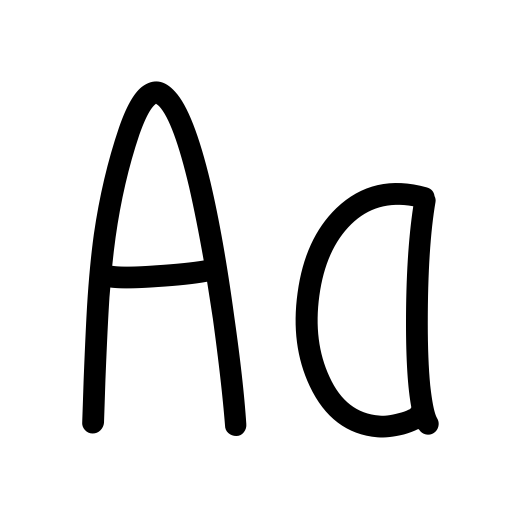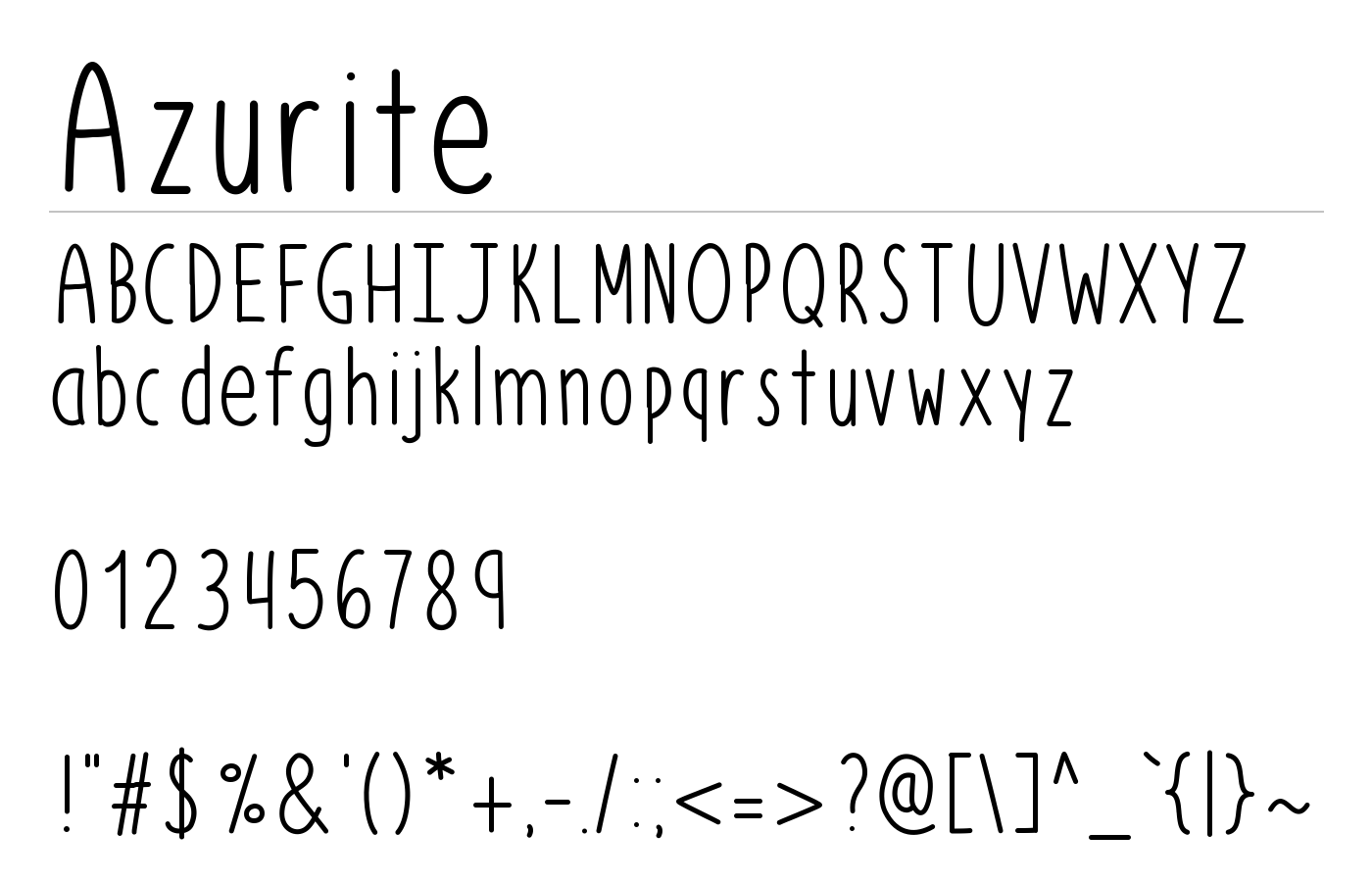
Azurite is a tall, narrow sans serif font with a playful and informal character. Its thin, slightly irregular strokes and single-story letterforms give it a hand-drawn, whimsical feel, making it perfect for casual, creative projects that want to convey friendliness and approachability. This font works well in headlines, packaging, and websites where a lighthearted and unique style is desired.
Azurite Font
About Azurite Font